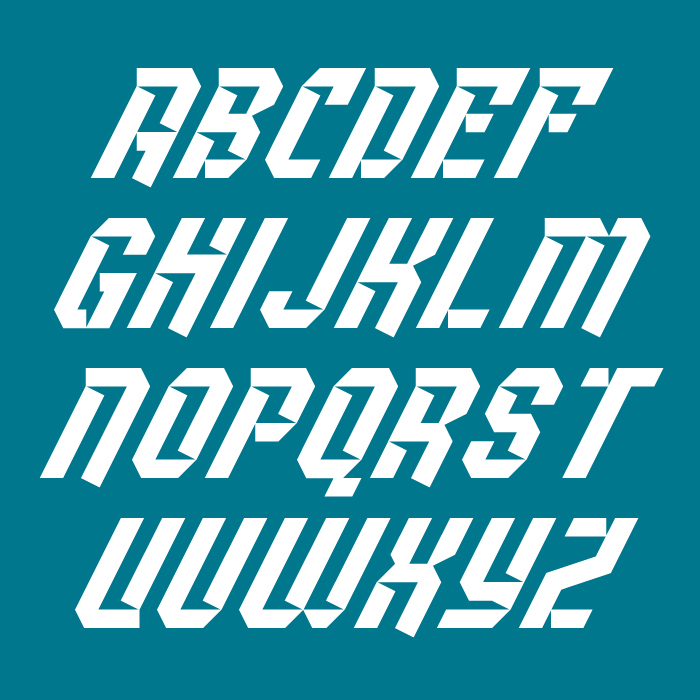
WOW! Veeeery interesting entry. I really like slants and how you have given joy and elegance with the cuts to these glyphs. My only "but" I would put it in the diacritics, which do not follow the general flow of the font, IMHO. And don't forget to add an image, please, compañero.
very interesting design, the tilde looks kinda out of place
WOW! Veeeery interesting entry. I really like slants and how you have given joy and elegance with the cuts to these glyphs. My only "but" I would put it in the diacritics, which do not follow the general flow of the font, IMHO. And don't forget to add an image, please, compañero.
Very nice. Excellent work.